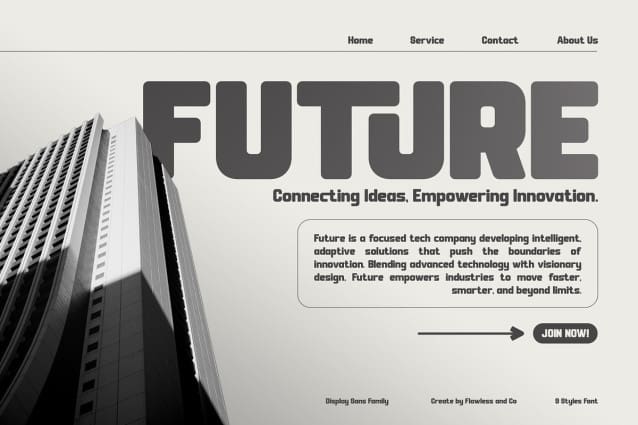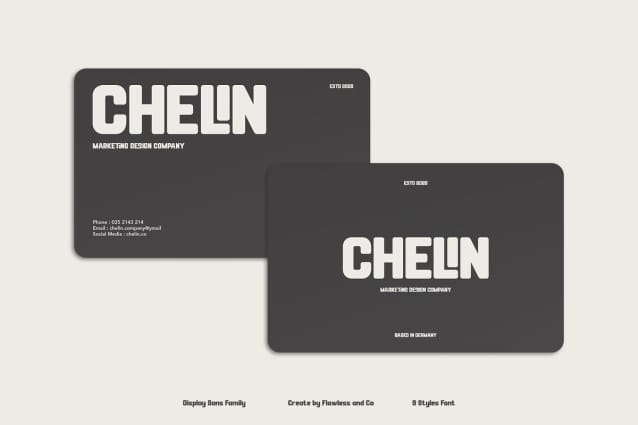
Satuva Font is a bold and modern display sans serif font family designed to make a statement. Featuring smooth rounded edges and strong geometric shapes, this font blends a contemporary aesthetic with high readability, making it perfect for impactful branding and design projects. With 9 versatile styles, Satuva offers flexibility for both digital and print applications — from bold headlines and attention-grabbing logos to sleek packaging and editorial layouts. Its unique ligature set adds personality and flow to your typography, helping your design stand out with confidence and modern charm.